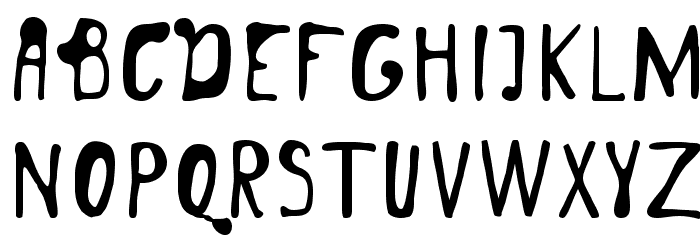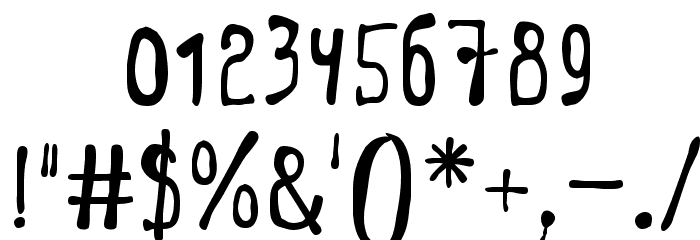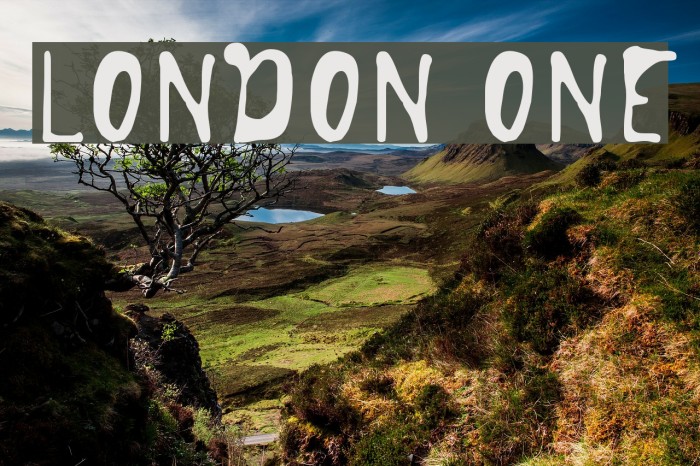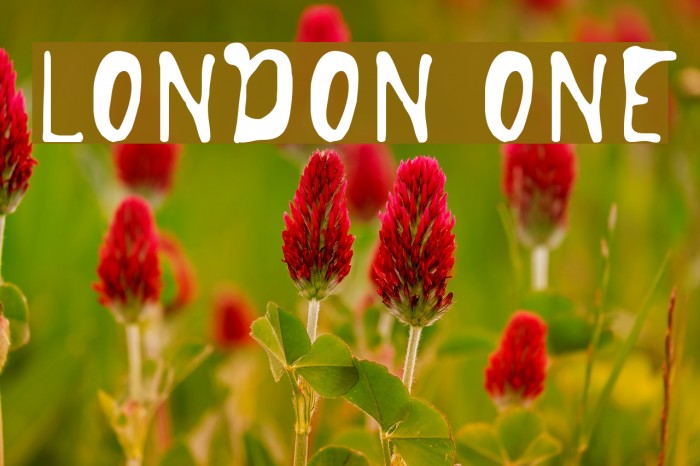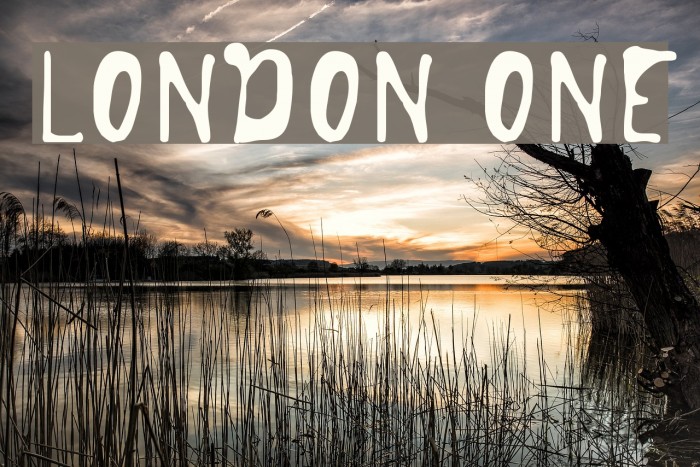
London One Font
This font features a playful and artistic style, characterized by its irregular and hand-drawn appearance. The letters have a whimsical quality, with varying stroke thicknesses and slightly uneven baselines, giving it a lively and dynamic feel. The uppercase and lowercase letters maintain a consistent style, with rounded edges and a casual flair. The numerals and special characters follow the same aesthetic, ensuring a cohesive look across all elements. This font's unique charm makes it suitable for creative and informal projects.
A playful, hand-drawn font with irregular strokes and a whimsical style.
- Proposed Projects: Ideal for children's books, creative posters, casual branding, and artistic invitations.